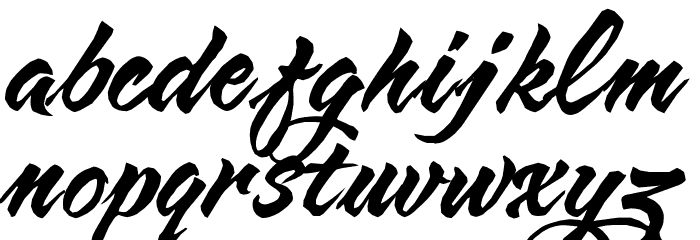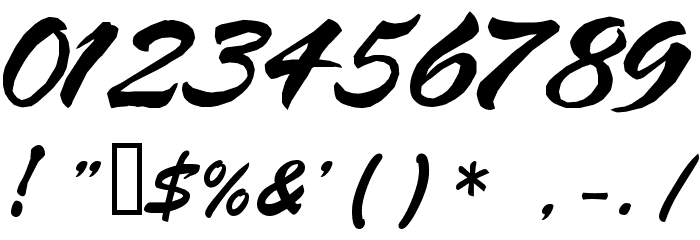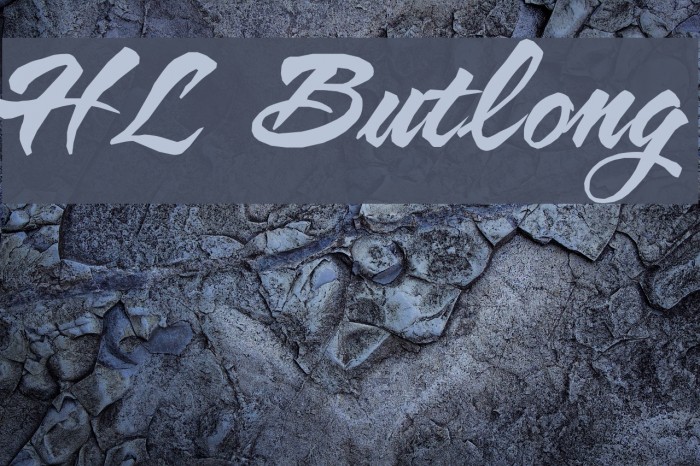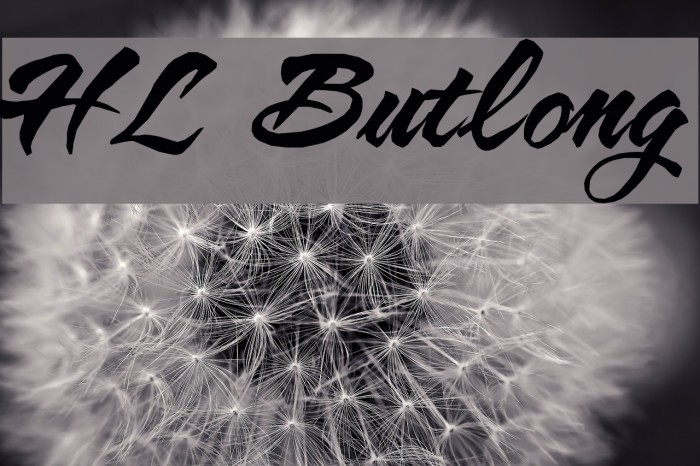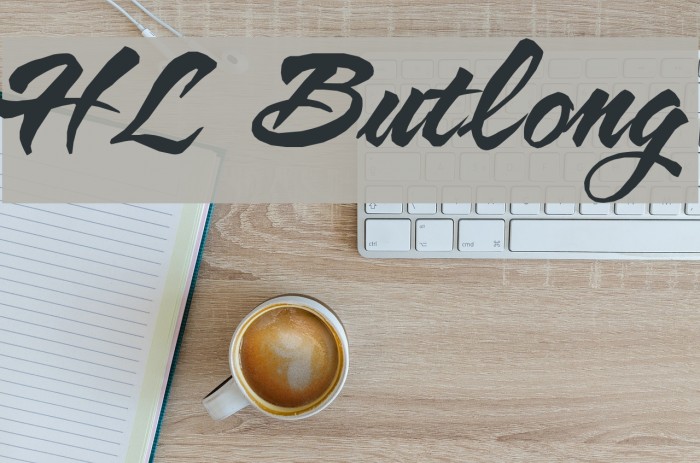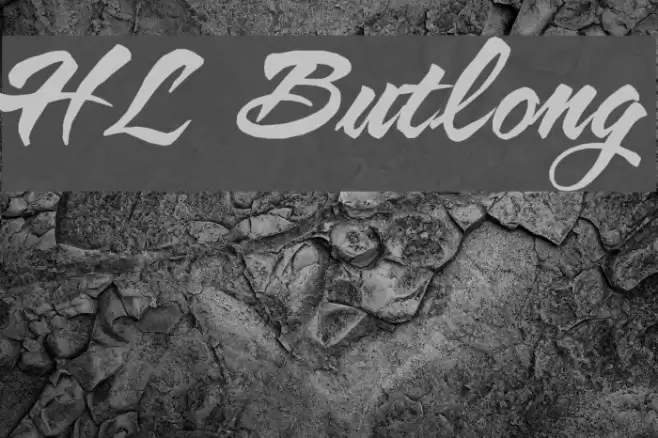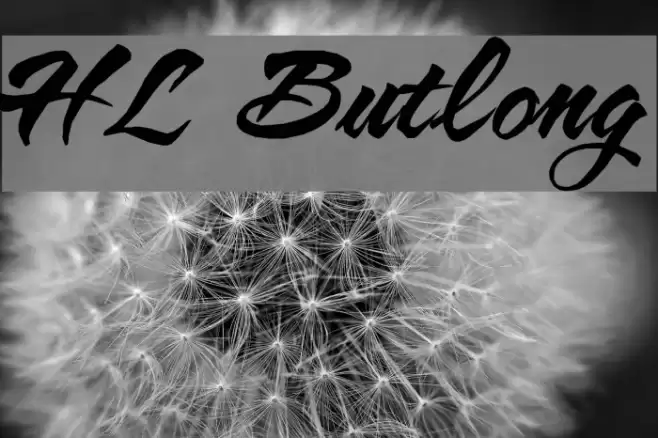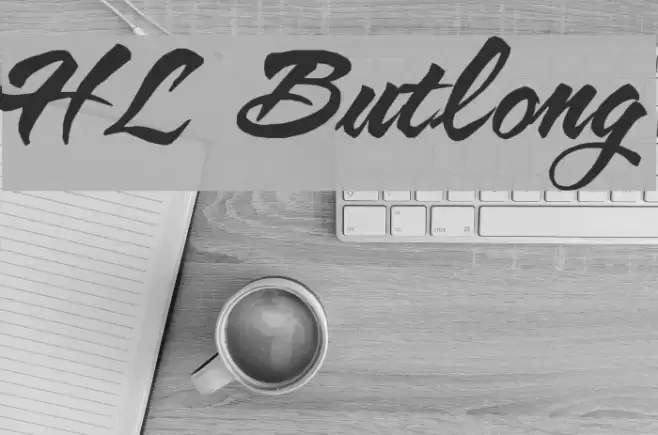
HL Butlong Font
This font features a bold and expressive script style, characterized by its flowing, cursive letterforms. The uppercase letters are particularly striking, with dramatic flourishes and a sense of movement that suggests elegance and dynamism. The lowercase letters maintain the same fluidity, with a slightly more compact form that complements the uppercase. Numbers and special characters are designed with the same attention to detail, ensuring consistency across all glyphs. The overall appearance is both artistic and legible, making it suitable for a variety of creative applications.
A bold, expressive script font with flowing, cursive letterforms.
- Proposed Projects: Ideal for branding, invitations, greeting cards, and artistic projects requiring a touch of elegance.
- Use Case: Logos, Headlines, Invitations